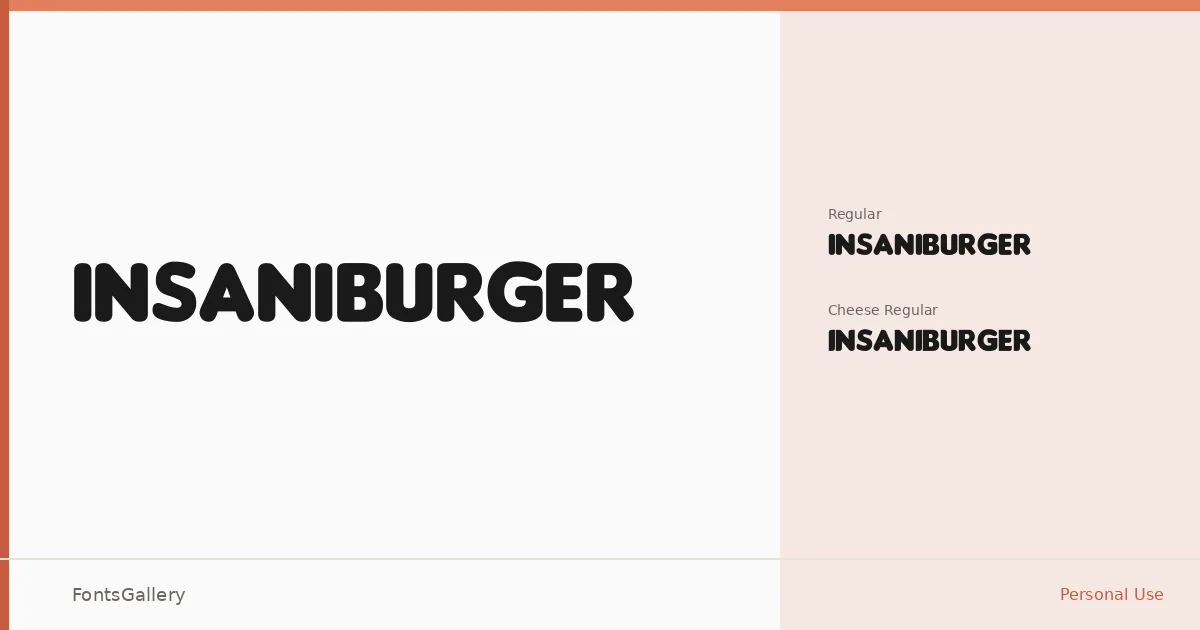
About Insaniburger Font
There is an unmistakable energy to these letterforms — chunky, bold, and pushed just far enough into the exaggerated to feel deliberate rather than accidental. The family comes in two cuts: the base Regular and a "with Cheese" variant that adds its own layer of character to the display treatment. Both ship as TTF files and carry a copyright dating to 2001, credited to Adam Nerland of Insanitype! Font Design.
This is a display face through and through — modern in its confidence, playful in its proportions, and unabashedly bold in weight. The two styles sit close together in spirit but give you a choice of register depending on how much personality a layout can absorb. Latin character coverage keeps things focused rather than sprawling. Neither cut is built for body copy; they are at their most comfortable when given room to own a line.
The natural home for Insaniburger is anywhere a headline, poster, or logo needs weight and attitude — T-shirt graphics, branding treatments, and event promotions all benefit from its assertive silhouette. For contrast, the clean neutrality of Helvetica reins in the exuberance well, while Aresink, Alexandria, Bizantheum, or Audex each offer different tonal relationships worth testing depending on the project's mood.